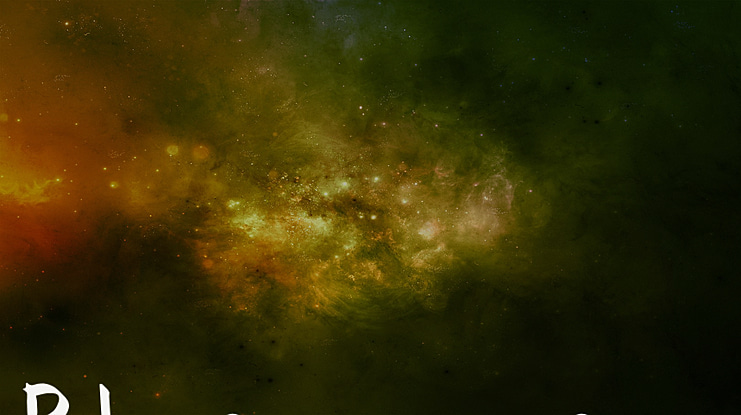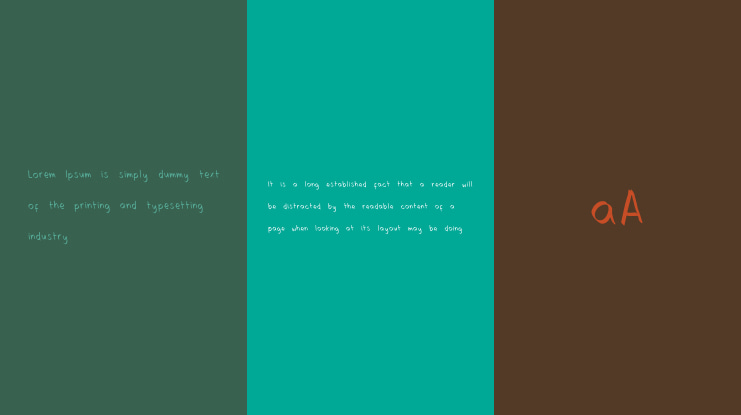
Blue ocean Font
Blue Ocean is a simple and neat display font. This font is perfect for children themed designs, especially when combined with bright colors.